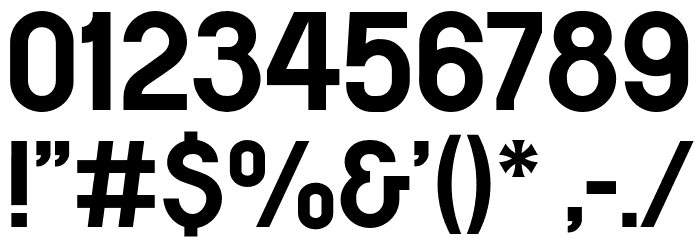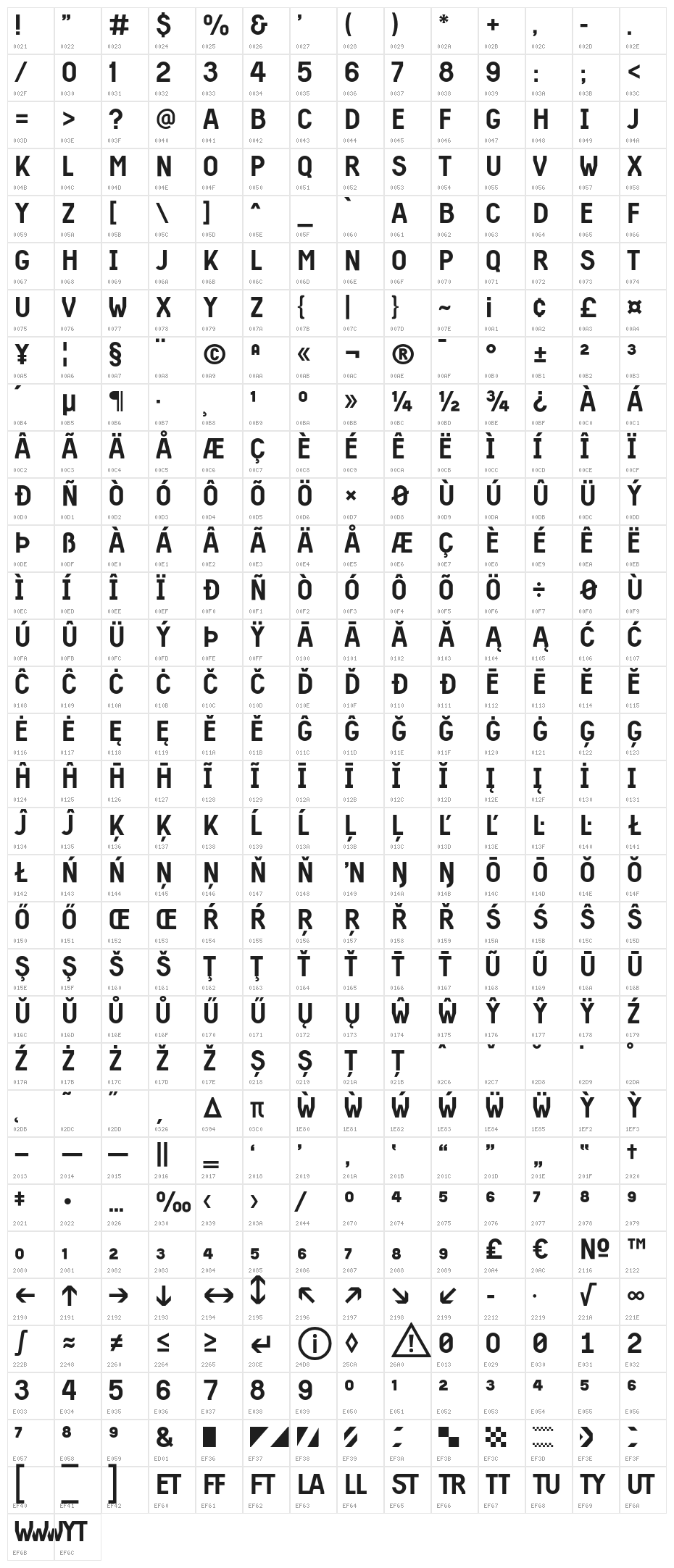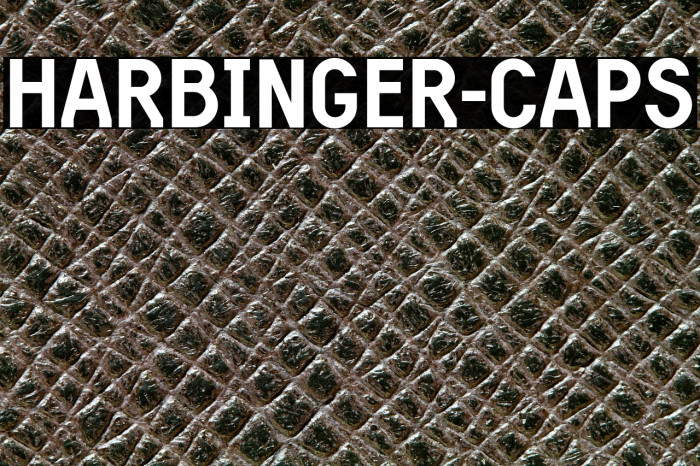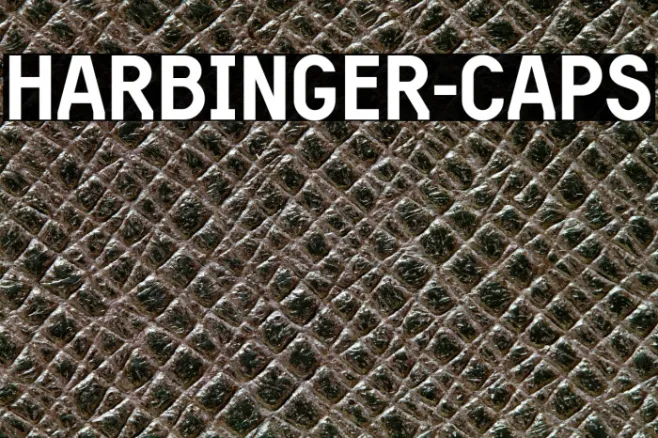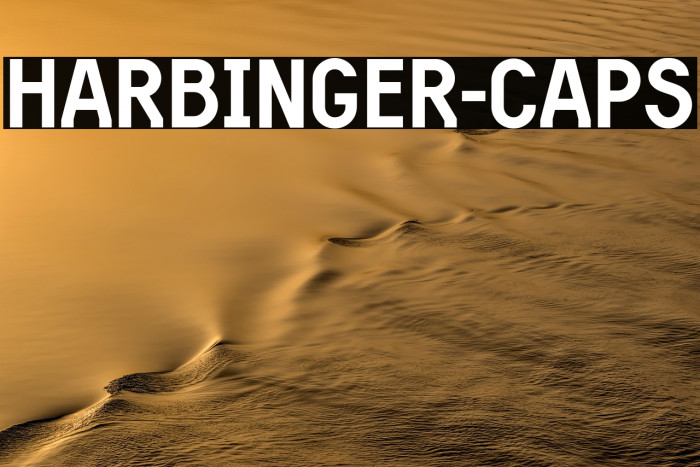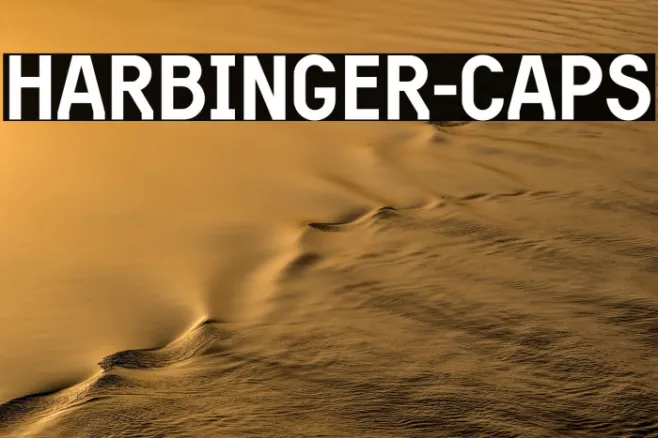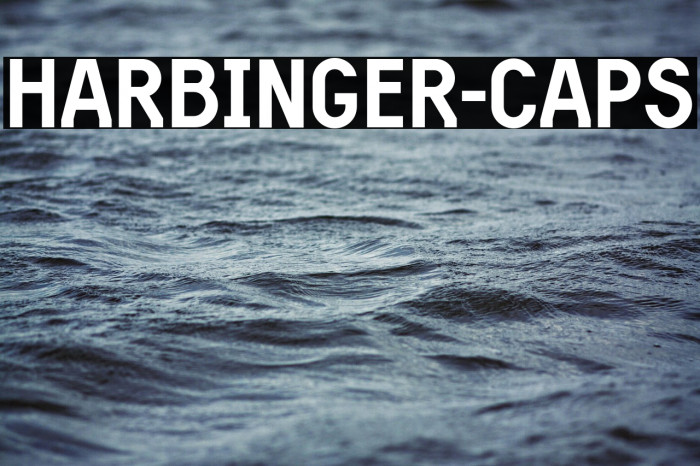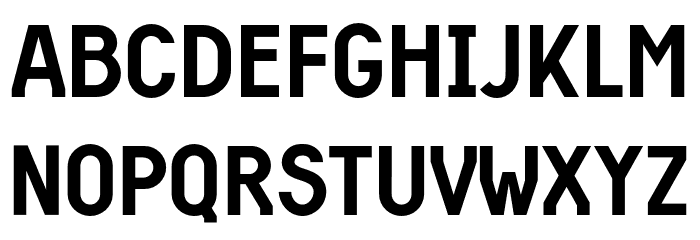
Harbinger-Caps Font
Harbinger-Caps Description
This font features bold, uppercase letters with a strong, geometric structure. The characters are evenly spaced, providing a clean and modern appearance. The strokes are consistent in thickness, offering a uniform look across all characters. The numerals and special characters maintain the same boldness and geometric style, ensuring a cohesive design. This font's simplicity and clarity make it highly legible, even at smaller sizes, while its boldness ensures it stands out in any design.
| Proposed Projects | Ideal for branding, headlines, posters, and signage where a strong, modern look is desired. |